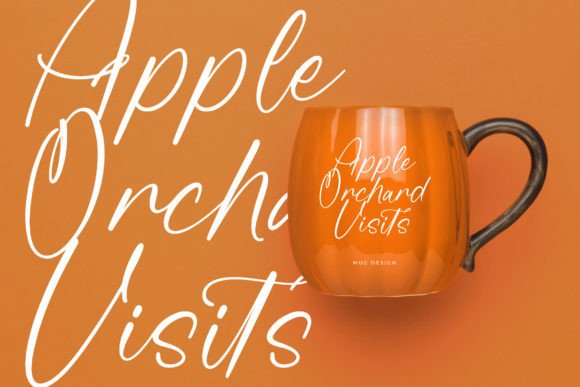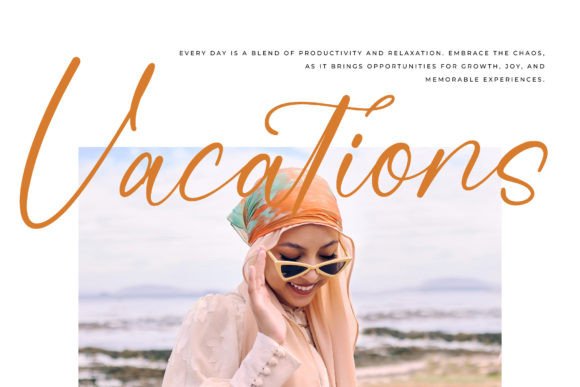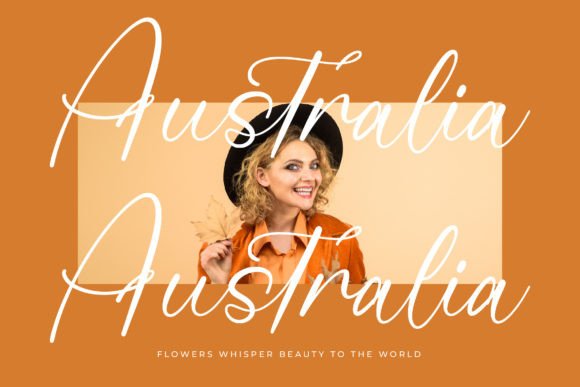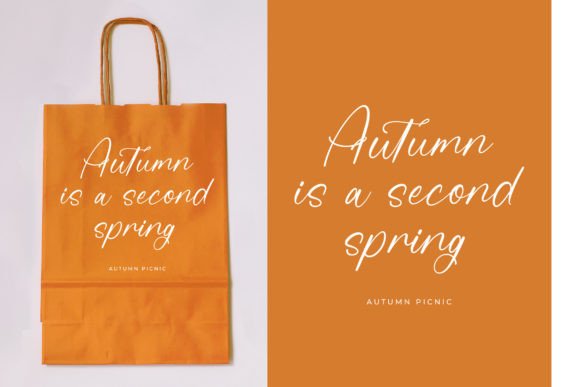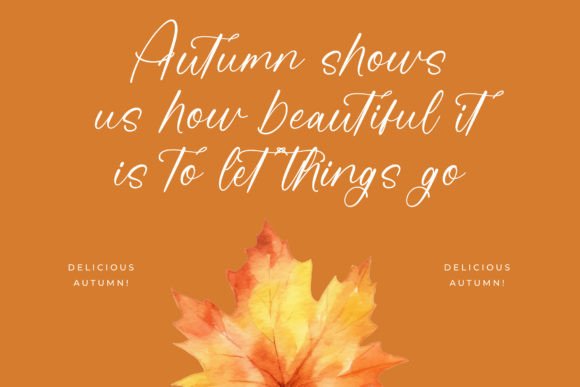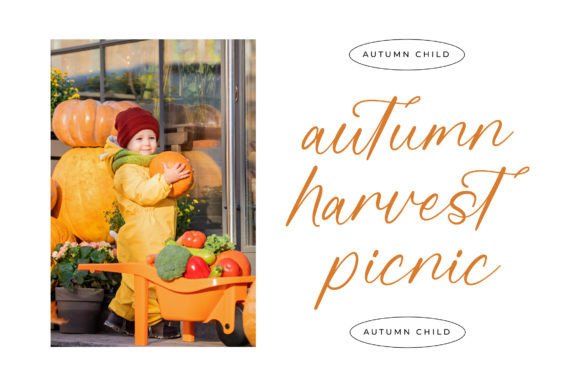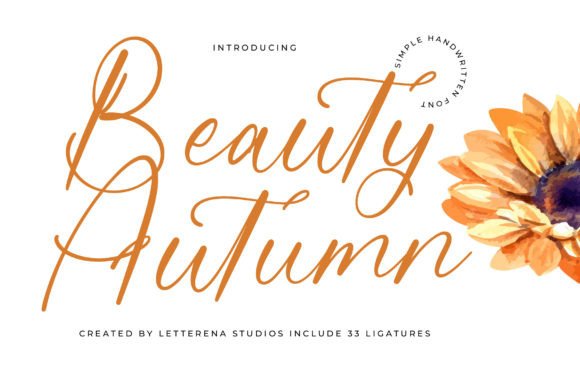
Introducing Beauty Autumn Font: Elevate Your Designs with Elegance
Are you a designer or crafter looking for a font that exudes luxury and sophistication? Look no further than Beauty Autumn Font, a simple yet stunning handwritten font from Letterena. This beautiful script font is perfect for a wide range of projects, from logos and branding to packaging, posters, and more.
What is Beauty Autumn Font?
Beauty Autumn Font is a luxury script font that boasts a elegant and refined aesthetic. Its simple, handwritten design makes it versatile and easy to use, while its sophisticated style ensures that your projects stand out from the crowd. Whether you’re working on a high-end branding project or a creative craft, this font is sure to impress.
Key Features of Beauty Autumn Font
- Luxury Script Style: Beauty Autumn Font features a beautiful, flowing script style that’s perfect for adding a touch of elegance to your designs.
- Simple and Versatile: Despite its sophisticated look, this font is surprisingly simple to use and pairs well with a wide range of design styles.
- Handwritten Charm: The handwritten nature of this font gives it a unique, personal touch that’s perfect for adding character to your projects.
Uses for Beauty Autumn Font
The possibilities are endless when it comes to using Beauty Autumn Font. Here are just a few ideas to get you started:
- Logos and Branding: Create a luxurious brand identity with a custom logo that showcases your business’s unique personality.
- Product Packaging: Add a touch of elegance to your product packaging with labels, tags, and other design elements that feature Beauty Autumn Font.
- Homeware Designs: Create beautiful home decor items like throw pillows, mugs, and wall art that feature this stunning font.
- Posters and Prints: Use Beauty Autumn Font to create eye-catching posters, prints, and other visual materials that demand attention.
- T-Shirts and Apparel: Design custom t-shirts, hoodies, and other apparel that feature your favorite quotes or phrases in this beautiful script font.
- Stationery and Cards: Create gorgeous stationery, greeting cards, and invitation cards that showcase your personal style.
Why Choose Beauty Autumn Font?
With so many fonts to choose from, why should you choose Beauty Autumn Font? Here are just a few reasons why this font stands out:
- Unique and Exclusive: This font is a rare find, making it the perfect choice for designers and crafters who want to stand out from the crowd.
- High-Quality Design: Beauty Autumn Font is designed with precision and care, ensuring that it looks beautiful in any context.
- Easy to Use: Despite its sophisticated look, this font is surprisingly easy to use and pairs well with a wide range of design software.
Beauty Autumn Font is a stunning luxury script font that’s perfect for designers and crafters who want to add a touch of elegance to their projects. With its simple yet sophisticated design, this font is versatile and easy to use, making it perfect for a wide range of applications. Whether you’re working on a high-end branding project or a creative craft, Beauty Autumn Font is sure to impress. So why wait? Download Beauty Autumn Font today and start creating beautiful designs that showcase your unique style!